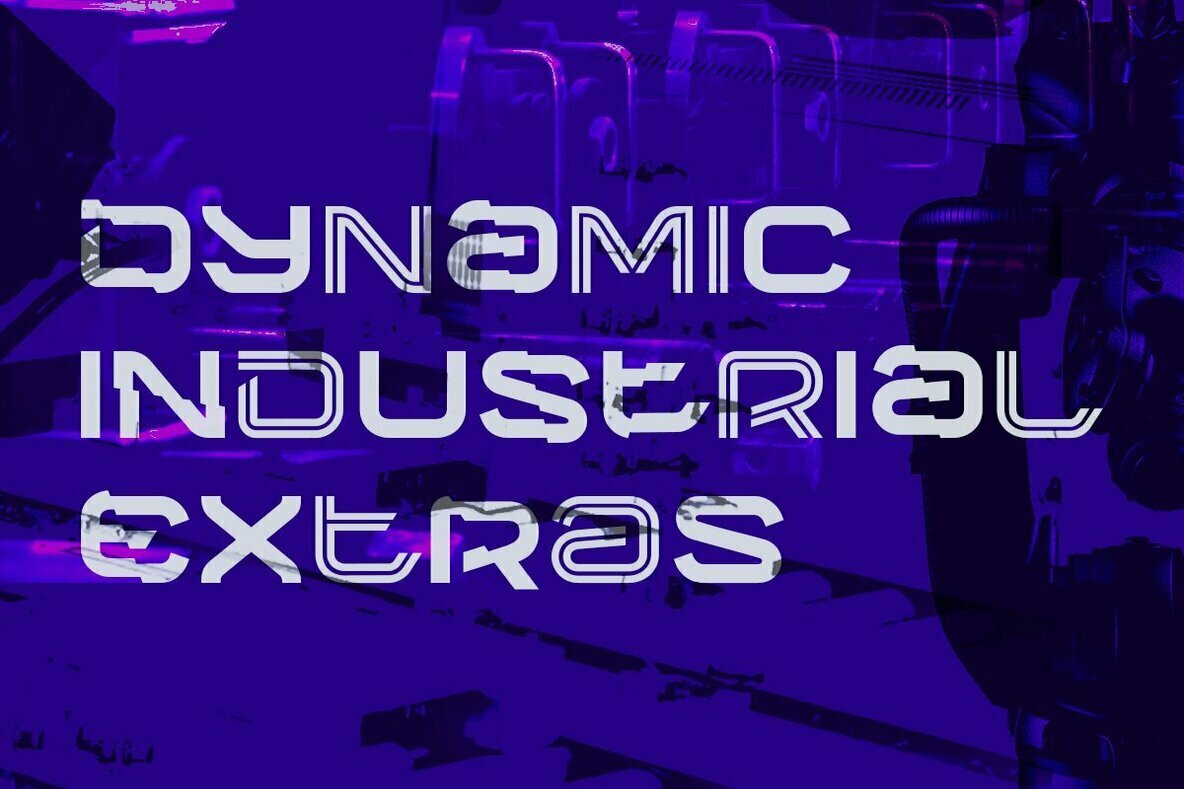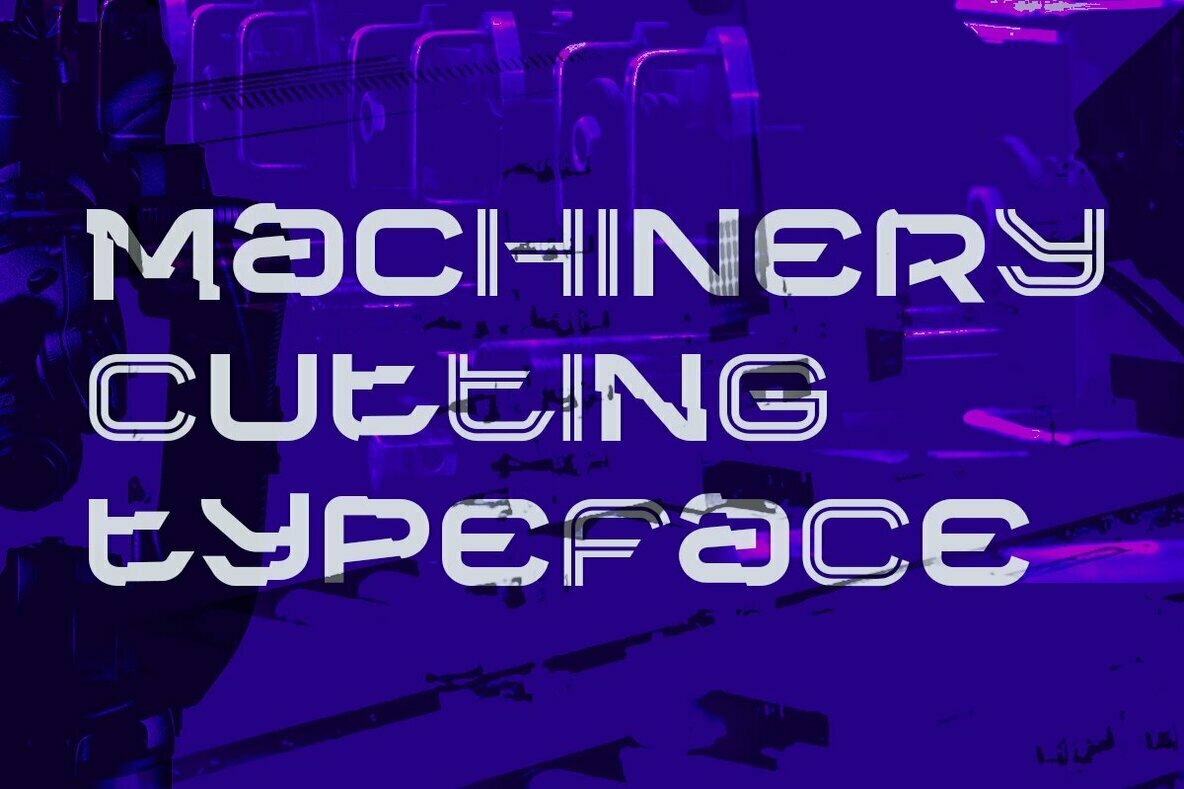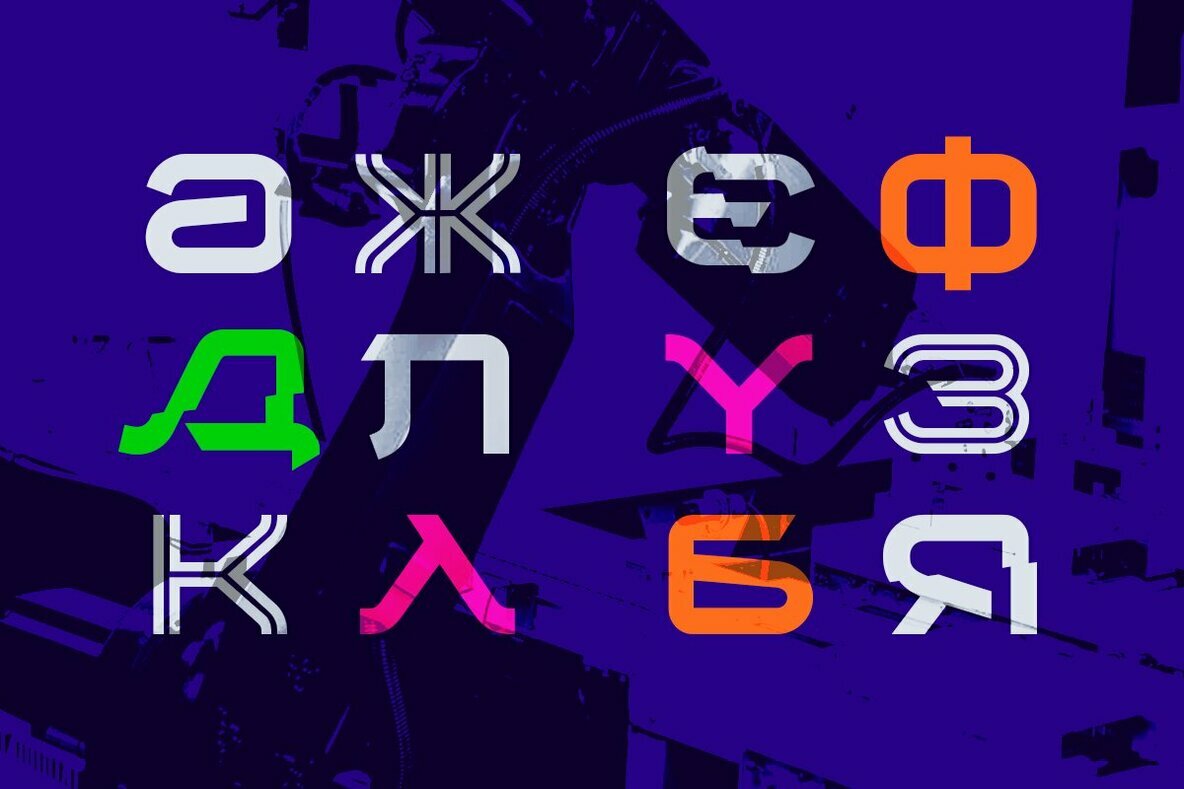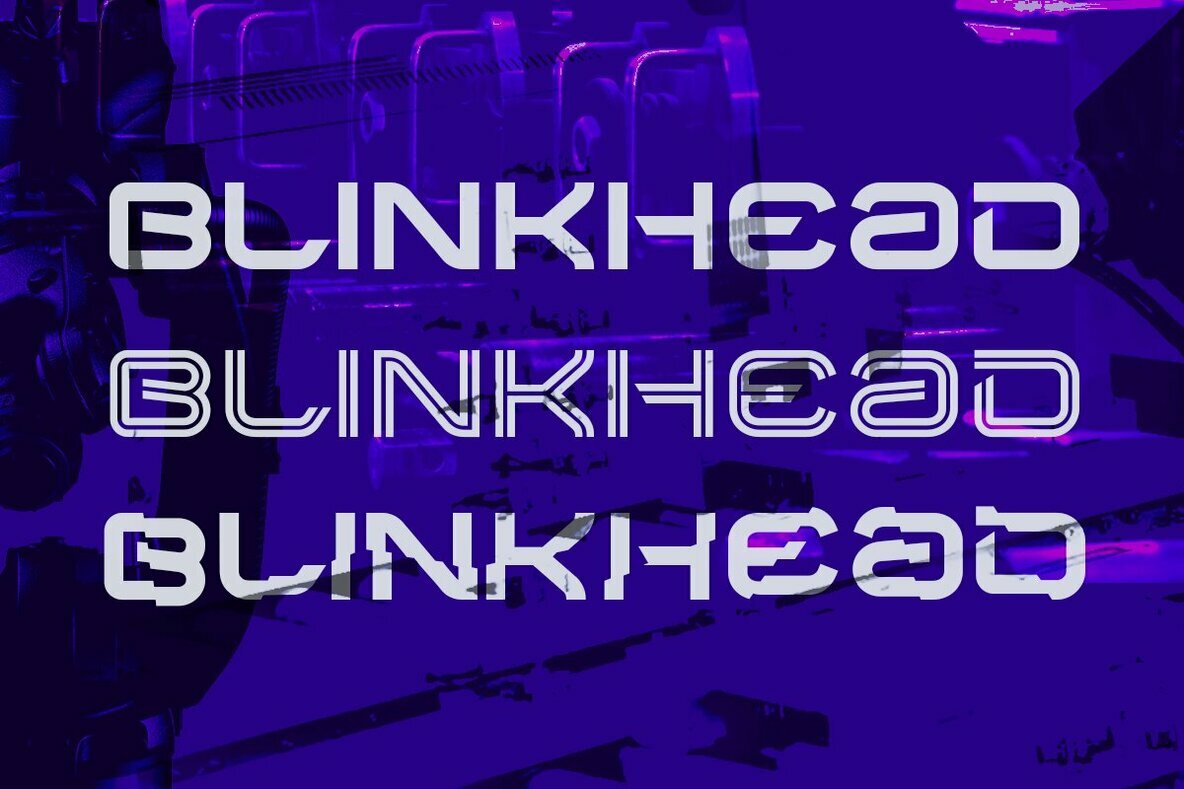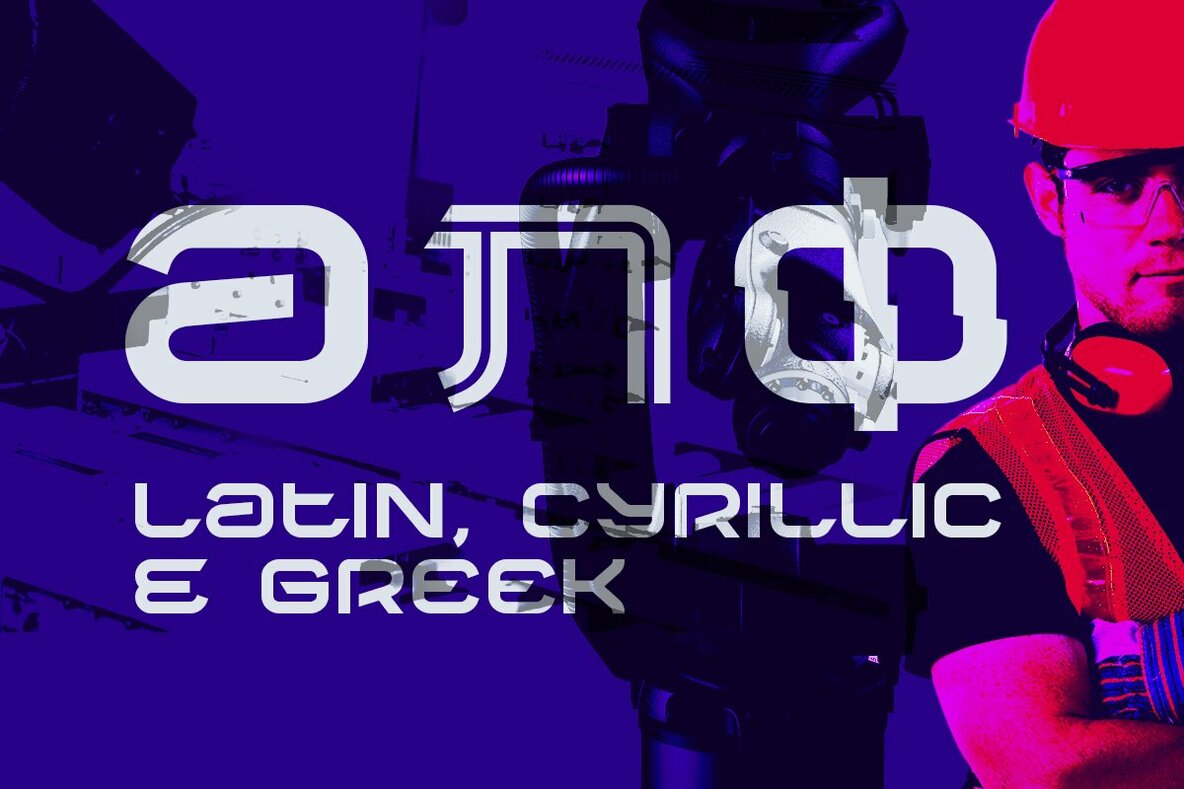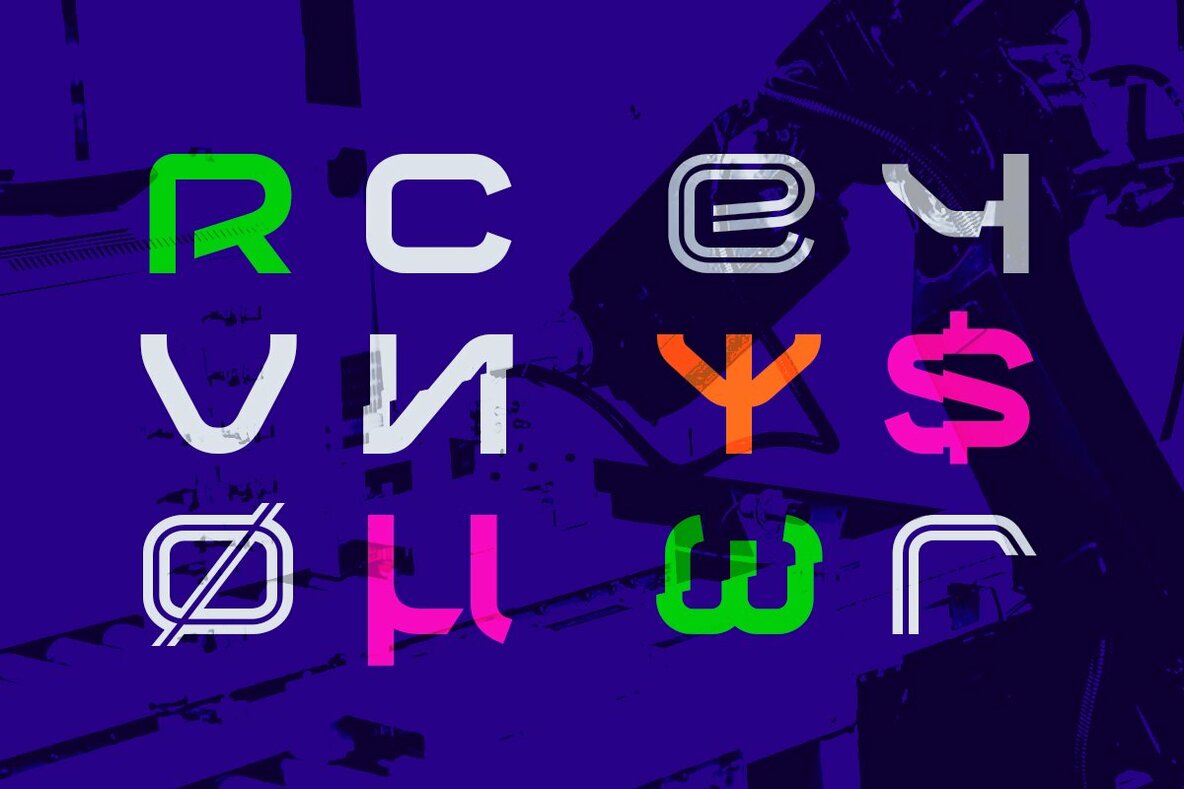
BLINKHEAD Font
BlinkHead is a powerfull block typeface inspired by industrial revolution and machineries. It comes in three styles for the moment with possibility to be added more later. It has a dynamic, curved letter ending that makes it perfect for some modern logo designs purpose and even powerful headlines. The folded style comes as an option to change some letters in plain text for more dynamic appeal.